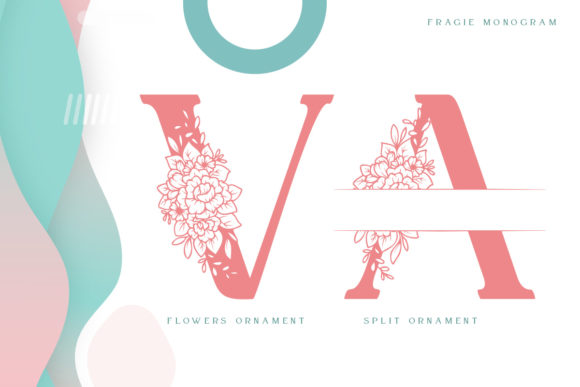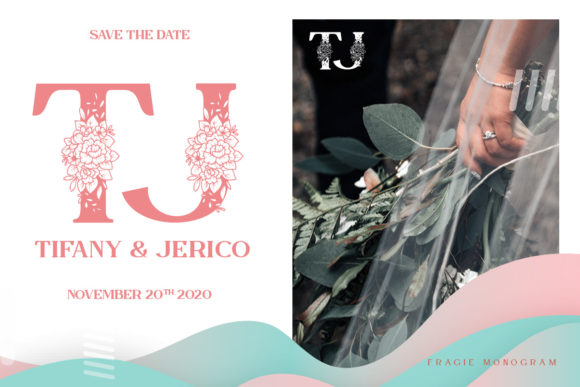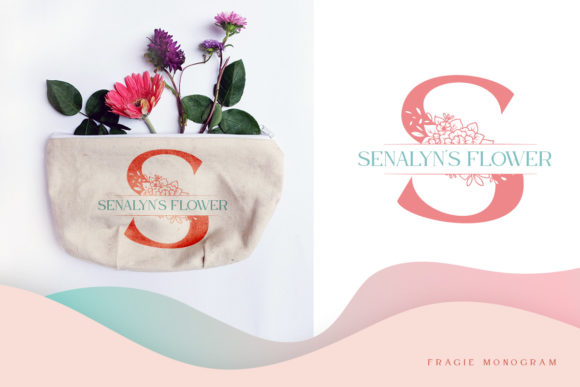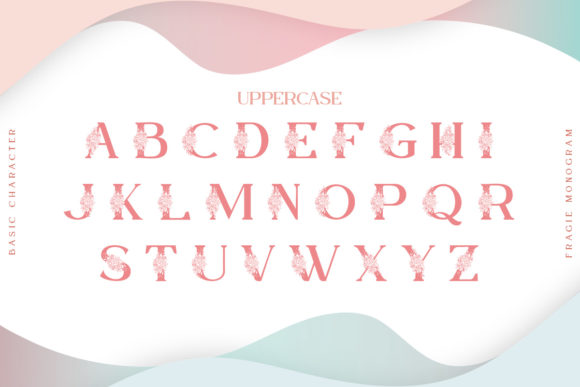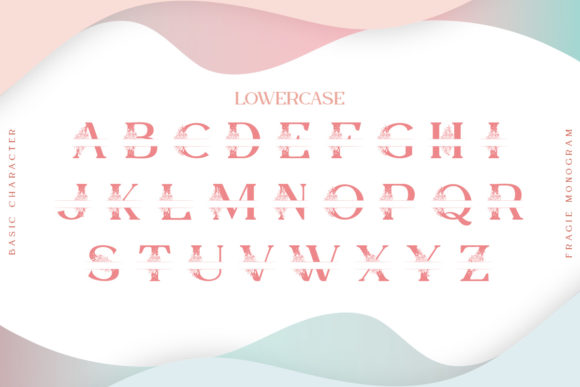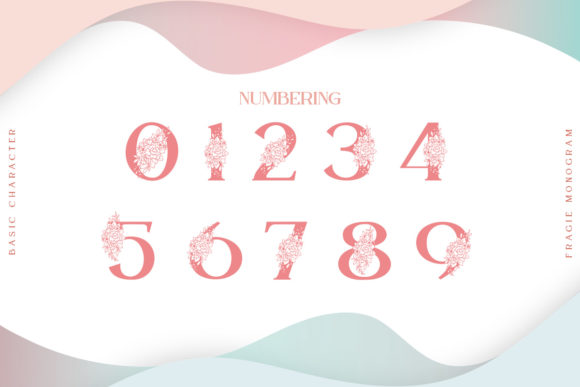
Introduction to Fragie Monogram Font
Have you ever been in the middle of a creative project, pouring your heart and soul into every detail, only to feel like something is missing? That’s exactly where the Fragie Monogram Font comes in – a game-changing design resource that can elevate your work to new heights.
As a designer, you’re always on the lookout for high-quality fonts that can help you stand out from the crowd. And let’s be honest, a great font can make all the difference in the world. With its unique, handcrafted feel, the Fragie Monogram Font is the perfect addition to any design project. Plus, it’s available for free download, making it an accessible resource for designers of all levels.
Whether you’re working on a personal project or a commercial design, the Fragie Monogram Font is a valuable tool that can help you achieve your creative vision. With its transparent background and versatile design, it’s the perfect choice for anyone looking to add a touch of sophistication to their work.
Key Features of Fragie Monogram Font
- High-quality, unique monogram design perfect for creative projects, offering a touch of elegance and sophistication.
- Available for free download, making it an excellent design resource for individuals and businesses alike.
- Comes with a transparent background, allowing for seamless integration with various design elements and backgrounds.
- Unique, hand-drawn design elements that add a personal touch to any creative project, setting it apart from standard fonts.
Honest Review: Fragie Monogram Font
I recently stumbled upon the Fragie Monogram Font and I must say it’s a great addition to any design project. This beautiful, high-quality font is perfect for adding a touch of elegance to your creative work.
What works well: ✨ The font has a transparent background, making it easy to use on any design resource, including logos, social media graphics, and more. It’s also a free download, which is a huge plus for designers on a budget. The font comes in a range of styles, from casual to formal, giving you plenty of options for your design project.
However, there are a few limitations: ⚠️ The font is not as versatile as some other monogram fonts on the market. It’s best suited for use on a white or light-colored background, as the design can get lost on darker backgrounds. Additionally, the font may not be compatible with all operating systems or software.
Overall, I’m impressed with the Fragie Monogram Font. It’s a great resource for designers looking to add a personal touch to their work. With a little creativity, this font can elevate even the simplest design project.
- Range of styles
To get the most out of the Fragie Monogram Font, experiment with different font sizes, colors, and combinations to create unique and eye-catching designs. Use the font’s transparent background feature to create custom graphics and logos that stand out.
Common Use Cases for Fragie Monogram Font
The Fragie Monogram Font is ideal for creating custom monograms, logos, and graphics for various projects, including business branding, event invitations, and personal branding materials.